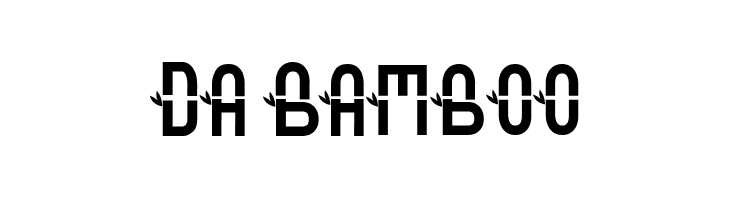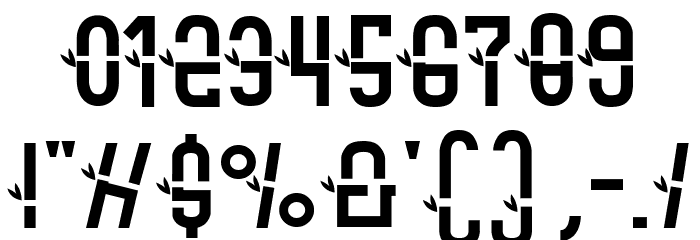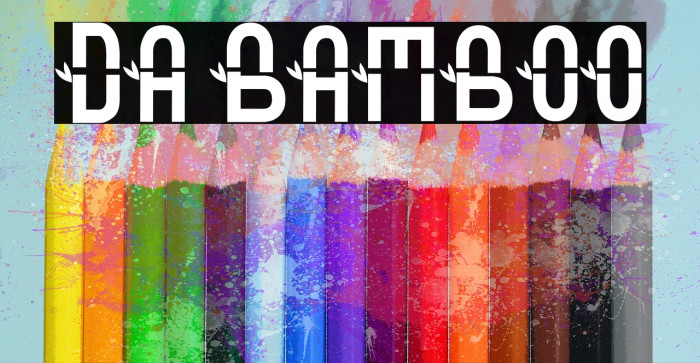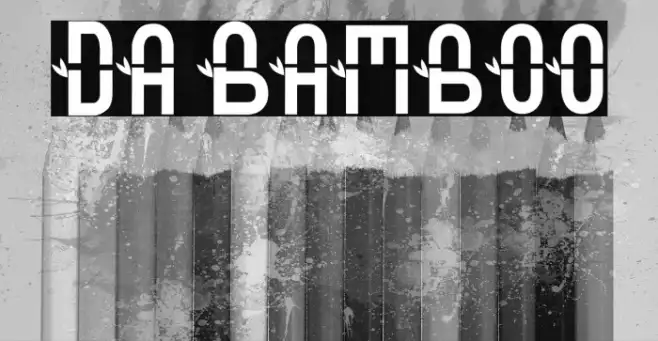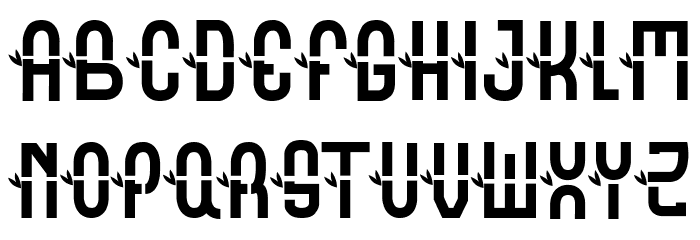
Da Bamboo Font
Da Bamboo Description
This font features a unique and creative design that incorporates bamboo-like elements into each character. The letters are bold and have a distinct, decorative style with horizontal cuts resembling bamboo segments. The uppercase and lowercase letters maintain a consistent theme, providing a cohesive look. Numbers and special characters are also designed with the same bamboo motif, making the font versatile for various applications. The overall appearance is striking and eye-catching, suitable for projects that require a natural or exotic aesthetic.
| Use Case | Logos, Headlines, Posters |
| Proposed Projects | Ideal for eco-friendly branding, Asian-themed restaurant menus, nature-inspired posters, and creative packaging designs. |